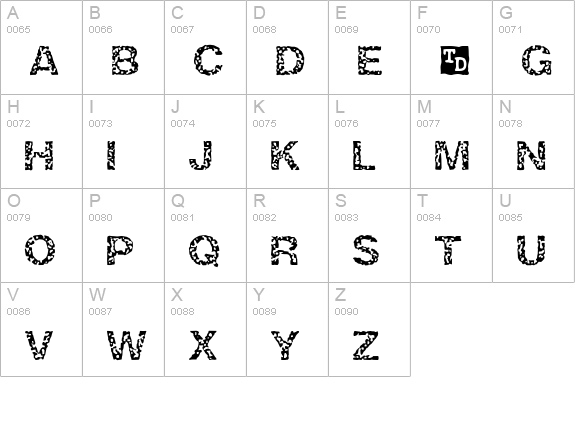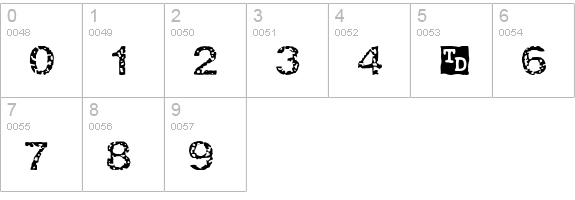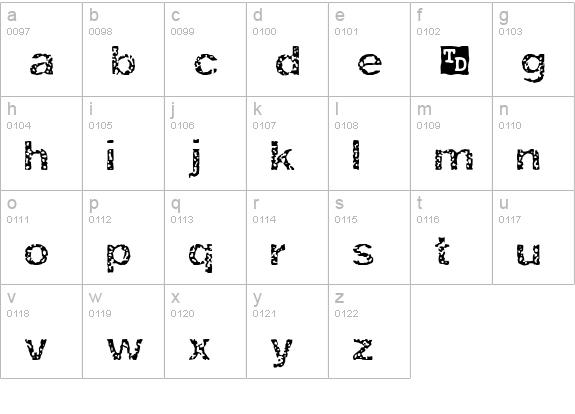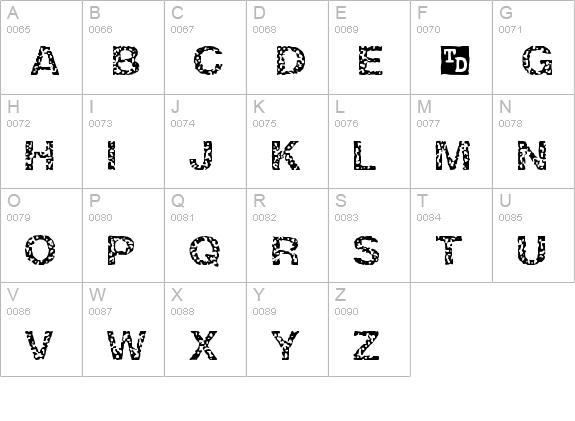
ZRex Trial Version Font Details
The ZRex Trial Version font is a stunning display typeface that exudes a modern and dynamic appeal. With its bold and sharp letterforms, this font is perfect for adding a touch of edginess to any design project. Whether you're creating posters, logos, or headlines, the ZRex Trial Version font will make your text stand out with its unique style. Best of all, the ZRex Trial Version font is available for free! You can easily download this font at FontsMarket.com and start using it in your projects right away. Don't miss out on this fantastic opportunity to enhance your designs with the eye-catching ZRex Trial Version font.